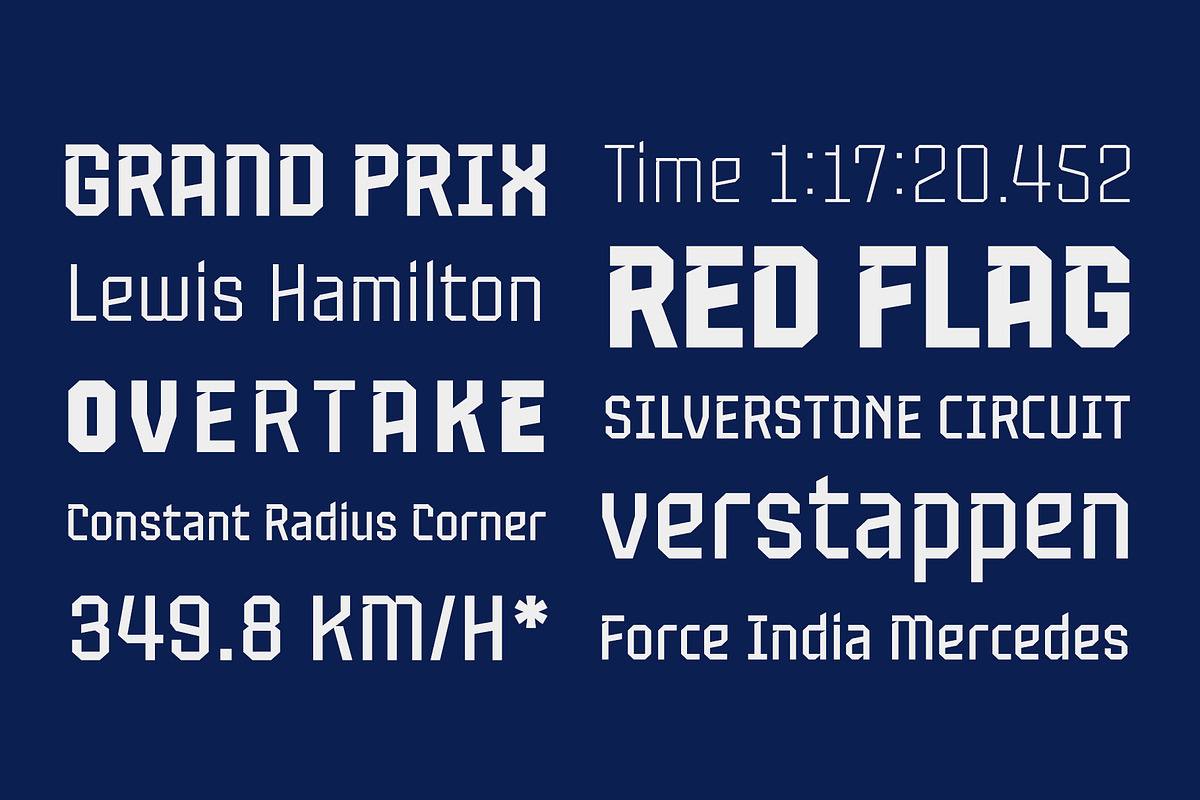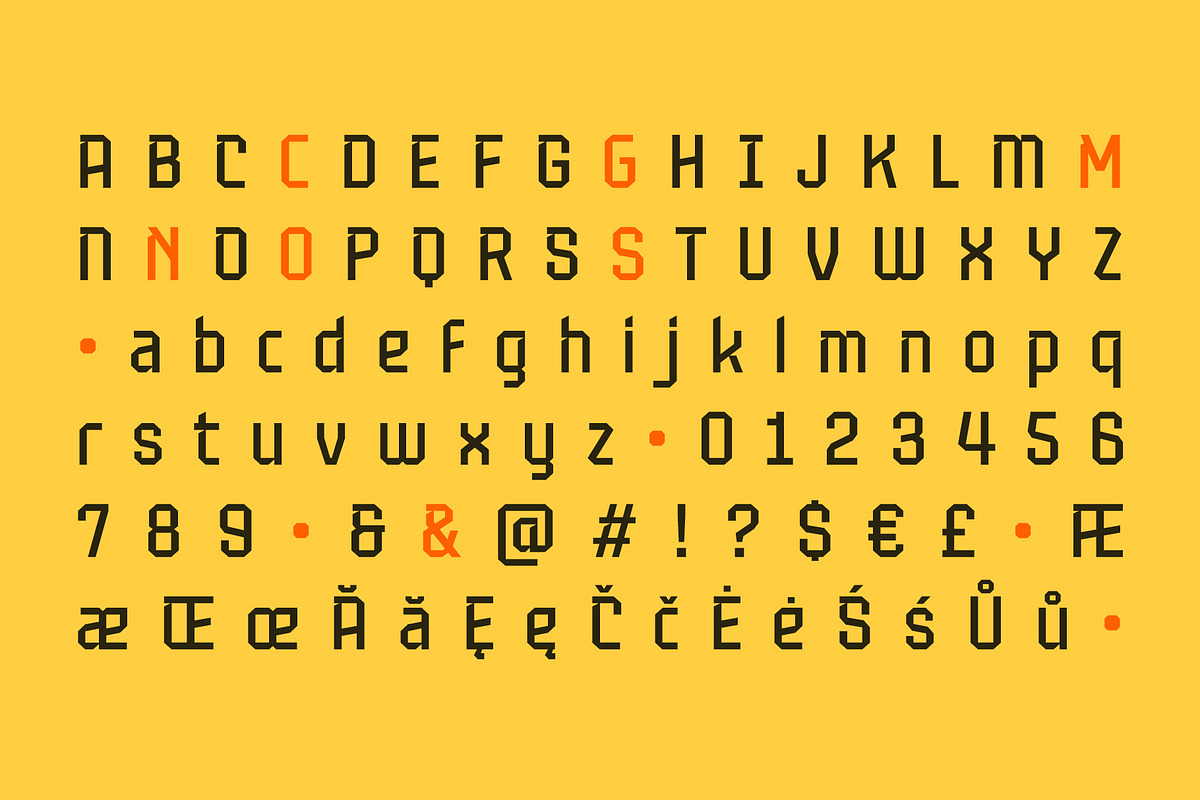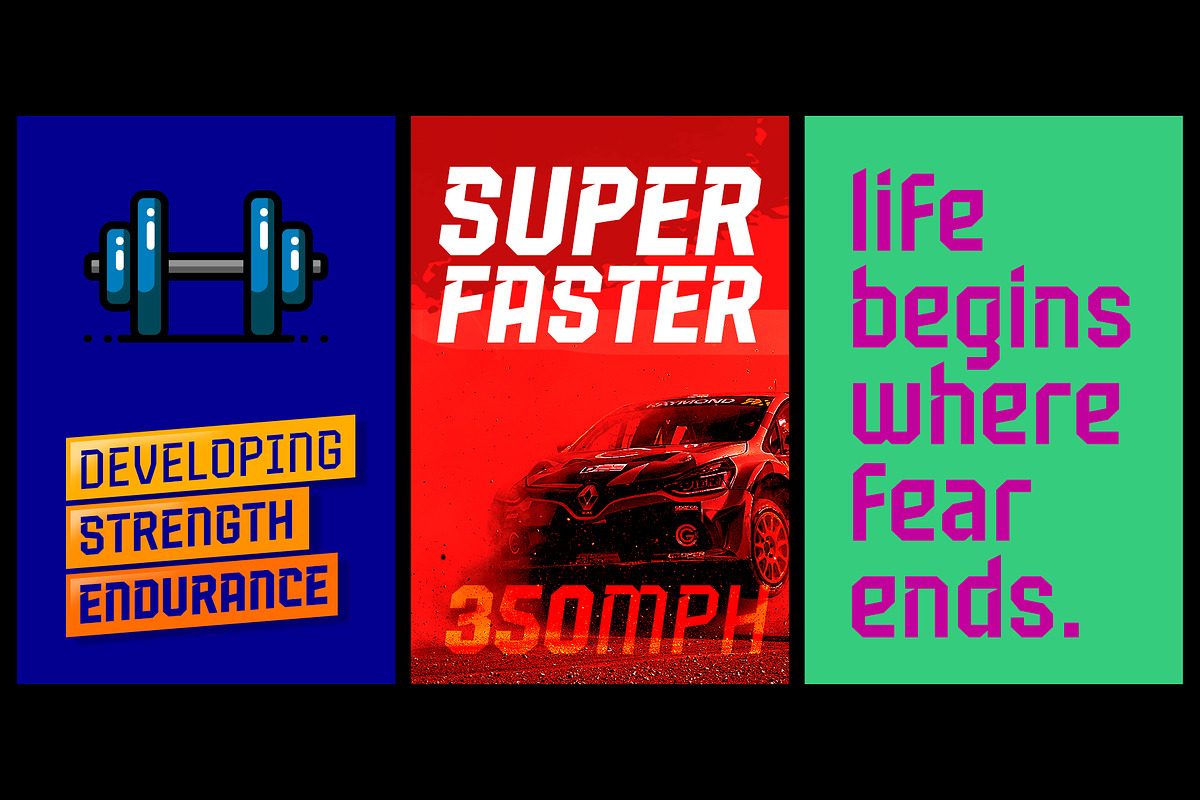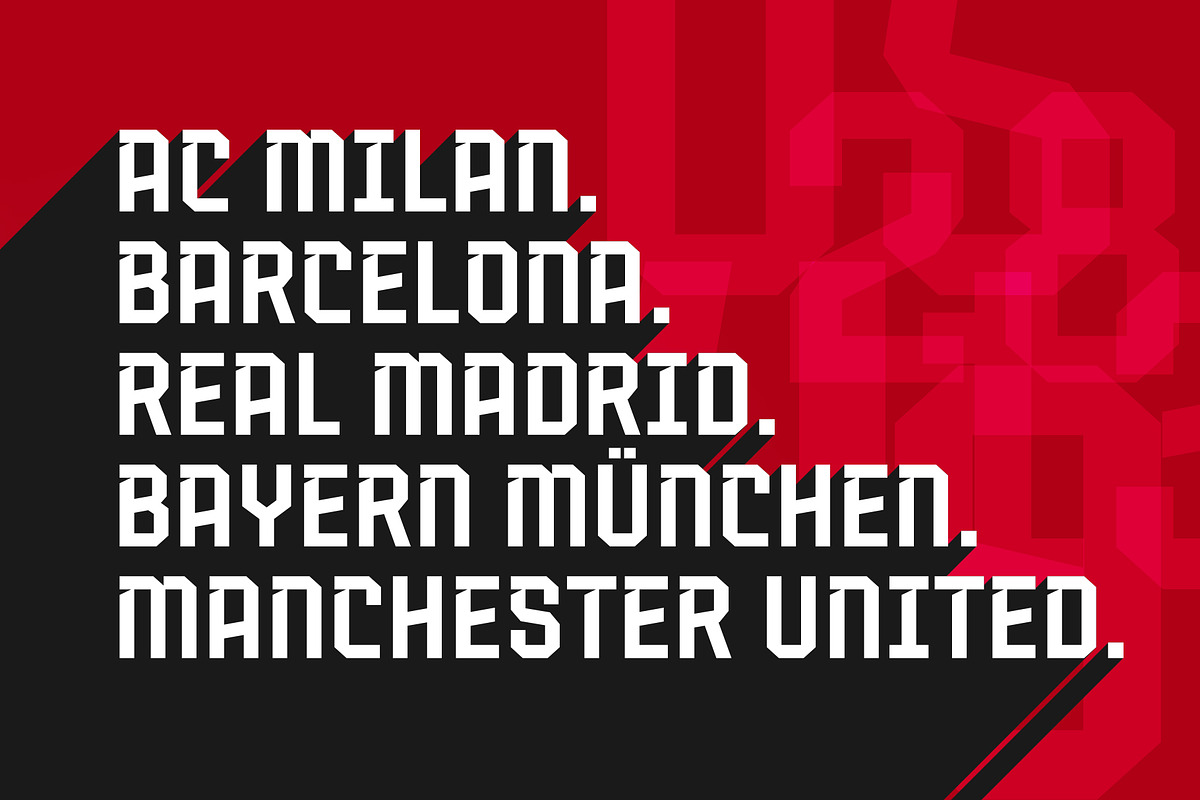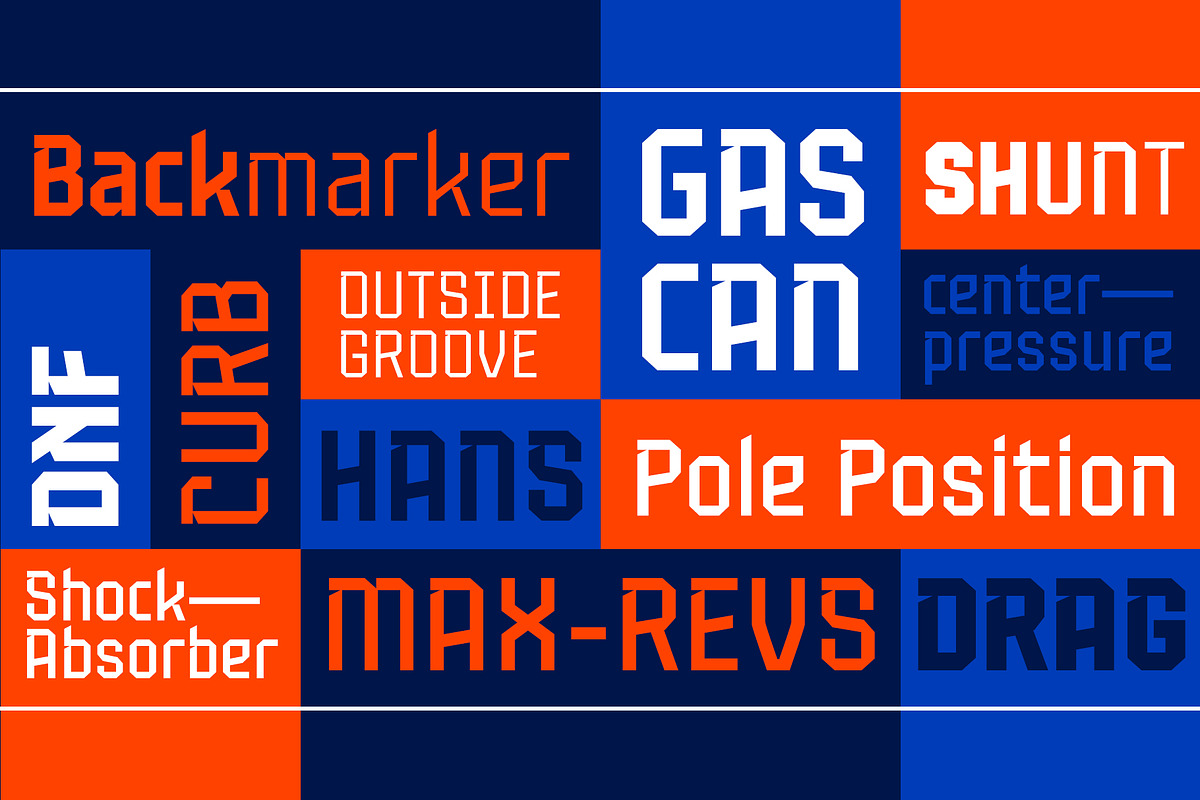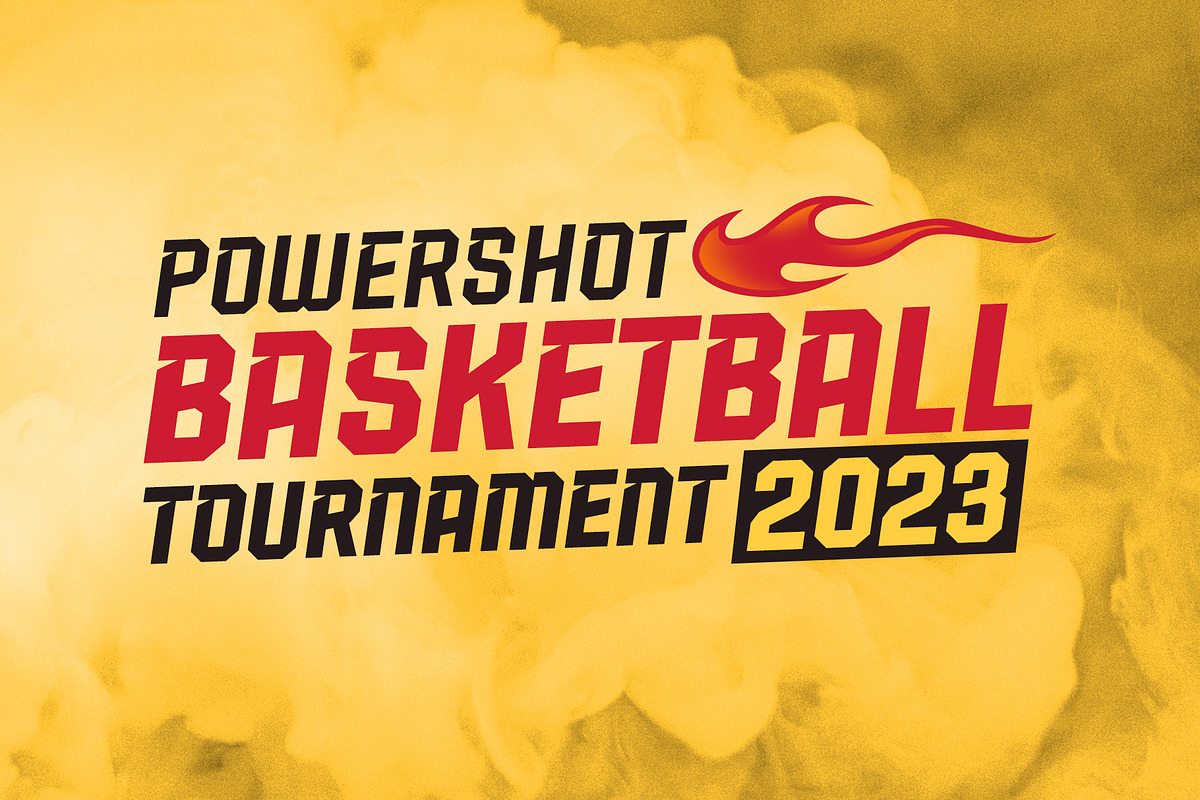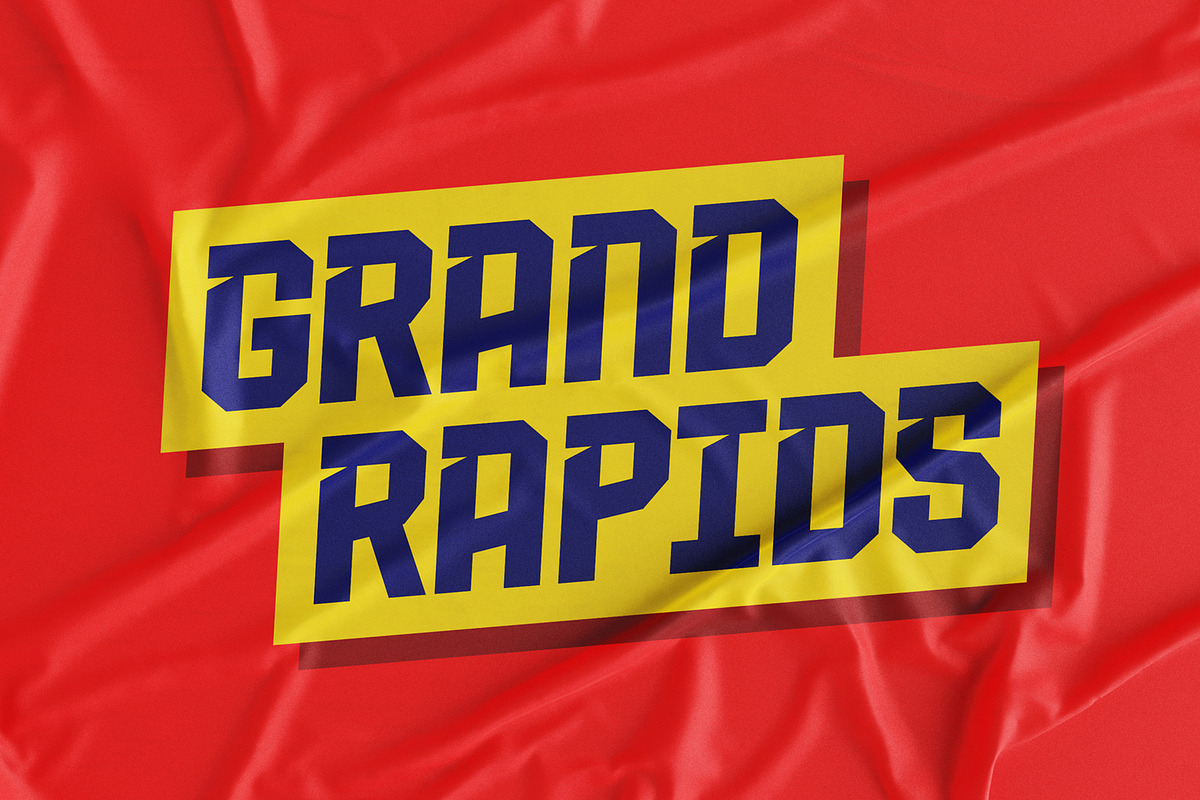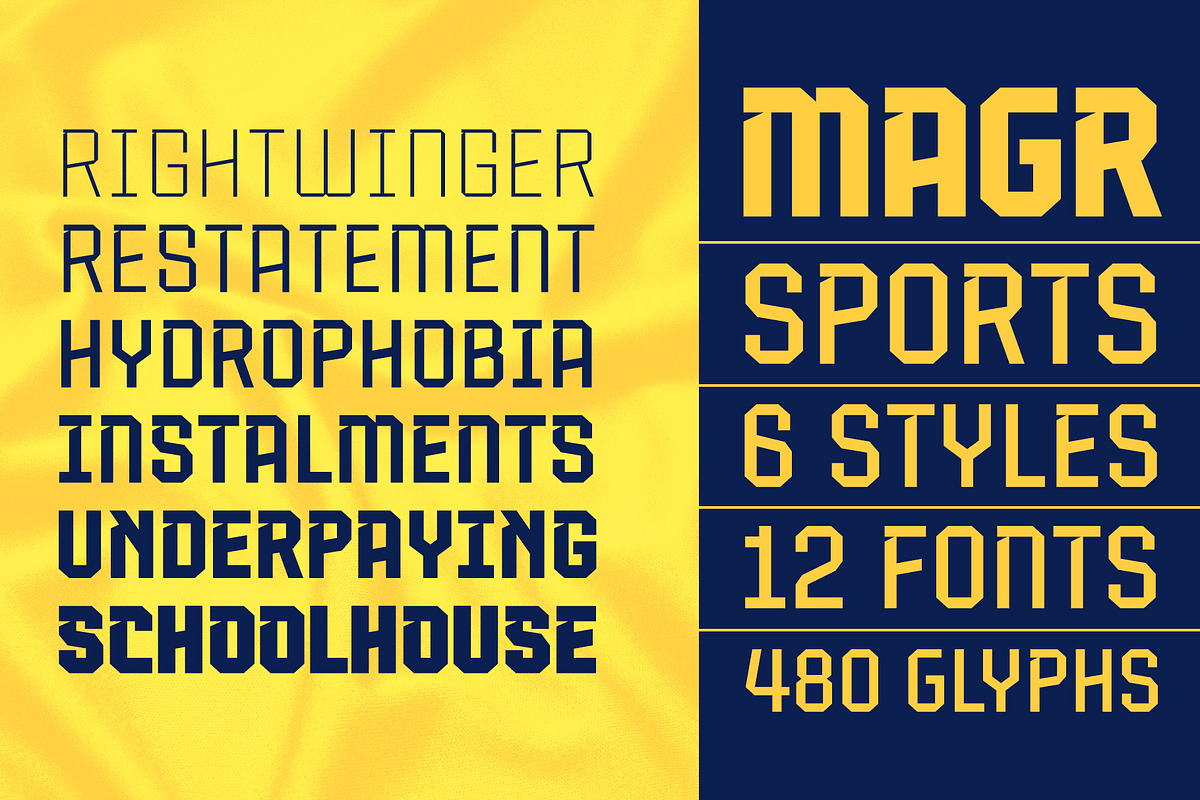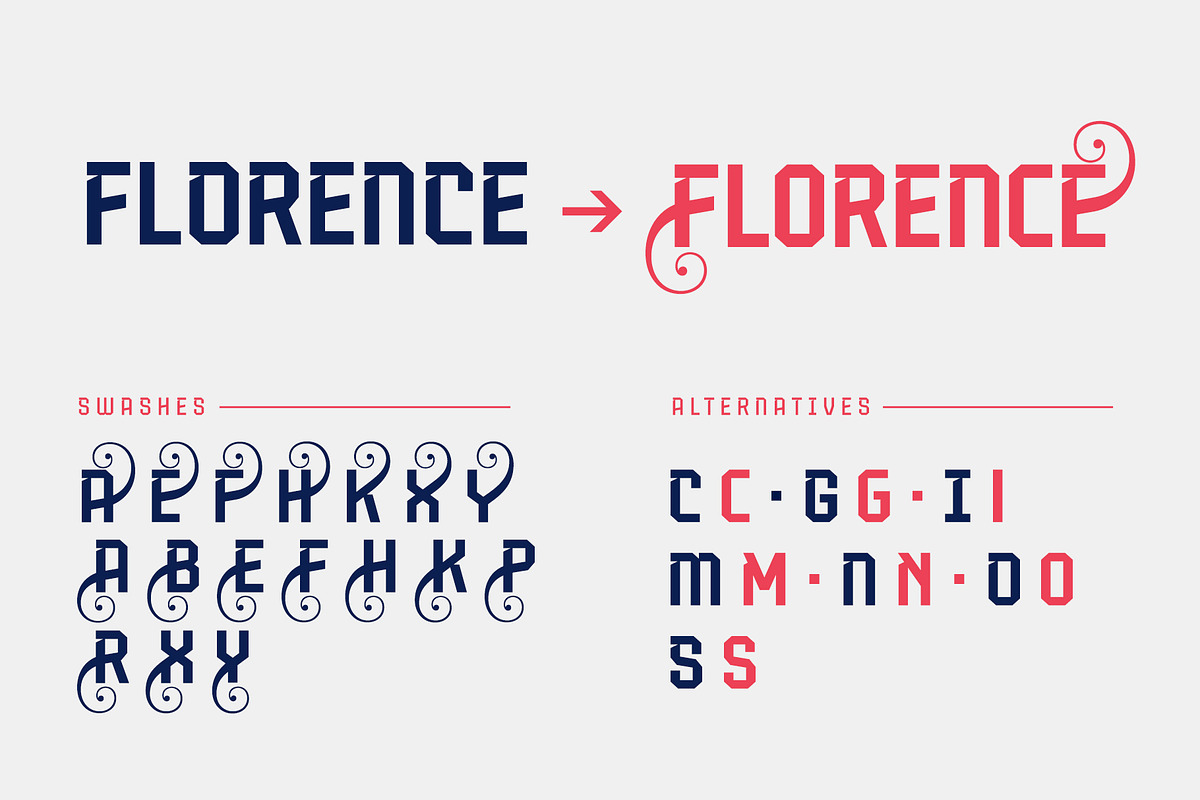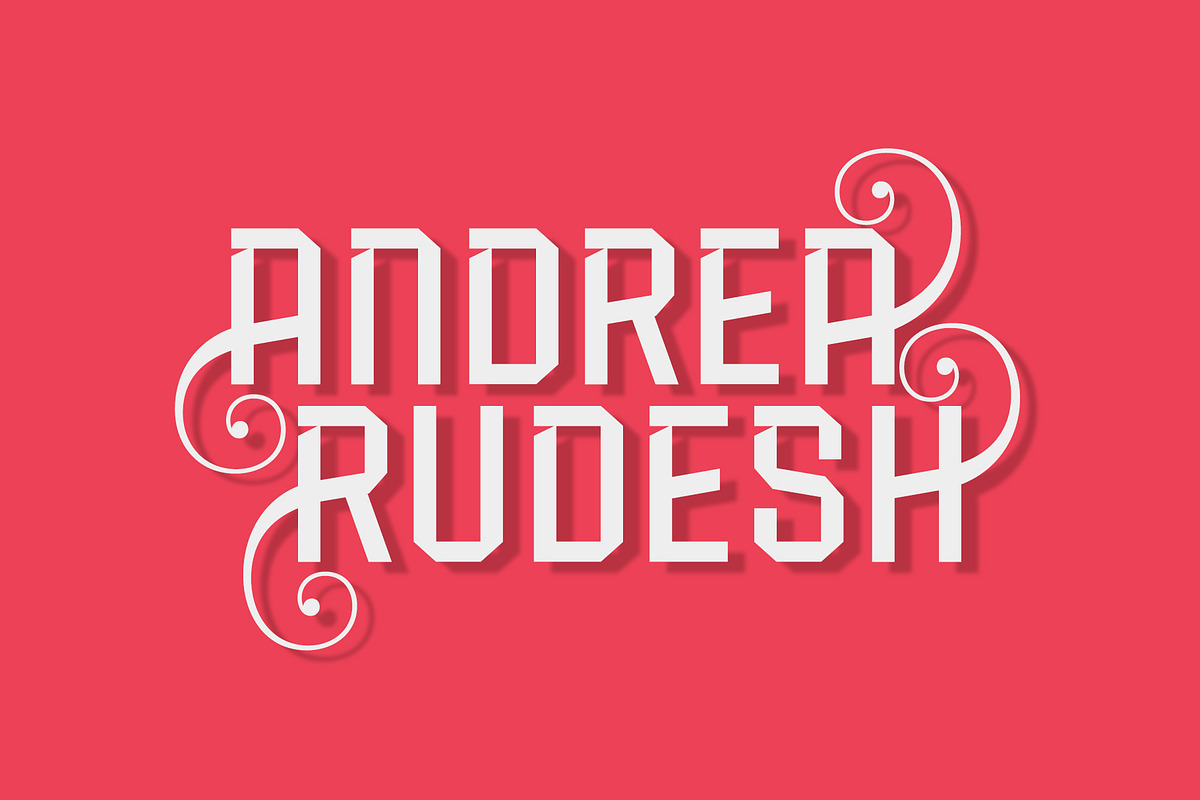
Magr Sport Font
MAGR is a modern and powerful sans font designed to elevate your sports team and athletic designs. With its sleek and dynamic appeal, Magr brings a professional touch to your projects, leaving a lasting impression.
Unlock your creativity with Magr's six styles and twelve fonts, including both upright and italic options. Stand out from the crowd and make a bold statement with this versatile font that complements your sports-themed materials.
Whether it's for posters, jerseys, or any athletic graphic, Magr's sharp and captivating design ensures your text commands attention. Upgrade your sports branding and visuals with Magr, and watch your designs soar to new heights.